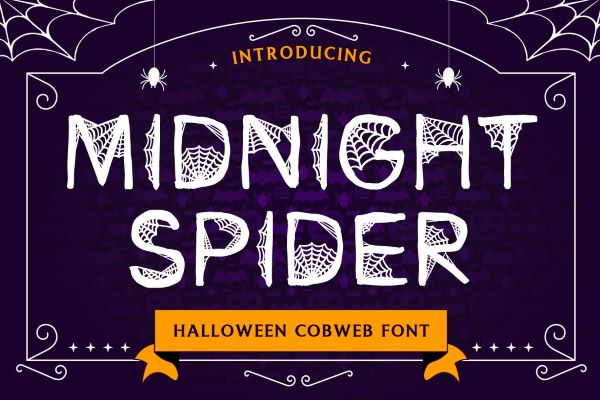
Midnight Spider Font
Midnight Spider by PutraCetol Studio is a free Halloween display typeface spun from the imagery of webs, shadows, and eight-legged terrors — a genuinely freaky font whose elaborate, web-threaded letterforms deliver the kind of intricate dark atmosphere that makes it ideal for Halloween event posters, horror branding, spooky editorial design, dark game assets, and any project that wants its typography to feel as though it was woven rather than written. Comes in two styles for creative flexibility. Free for personal use; commercial via putracetol.com.